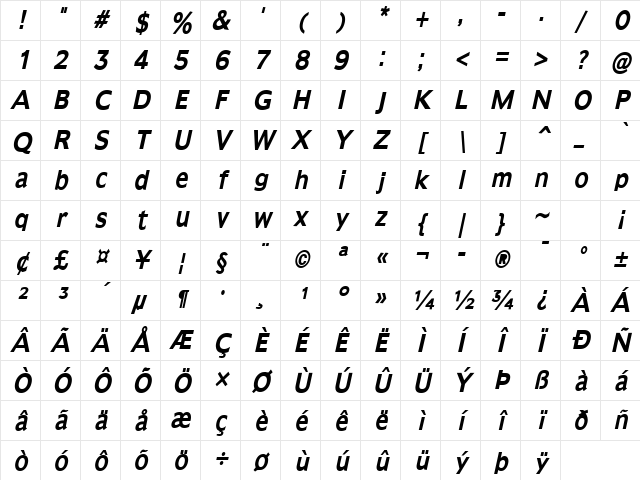
Complete Adams-Condensed Bold Italic glyph index. Displaying only characters natively supported by Adams-Condensed Bold Italic font.
Adams-Condensed is a composed and adaptable typeface that performs quietly and consistently across a wide range of design contexts. The slanted form adds forward momentum and visual energy. Its bold stroke weight gives it real presence on the page. Its narrow stance lets it pack a punch even in space-constrained designs.
Pro Tip: Use Adams-Condensed for emphasis, pull quotes, and subheadings where its slanted energy can add rhythm to the layout.